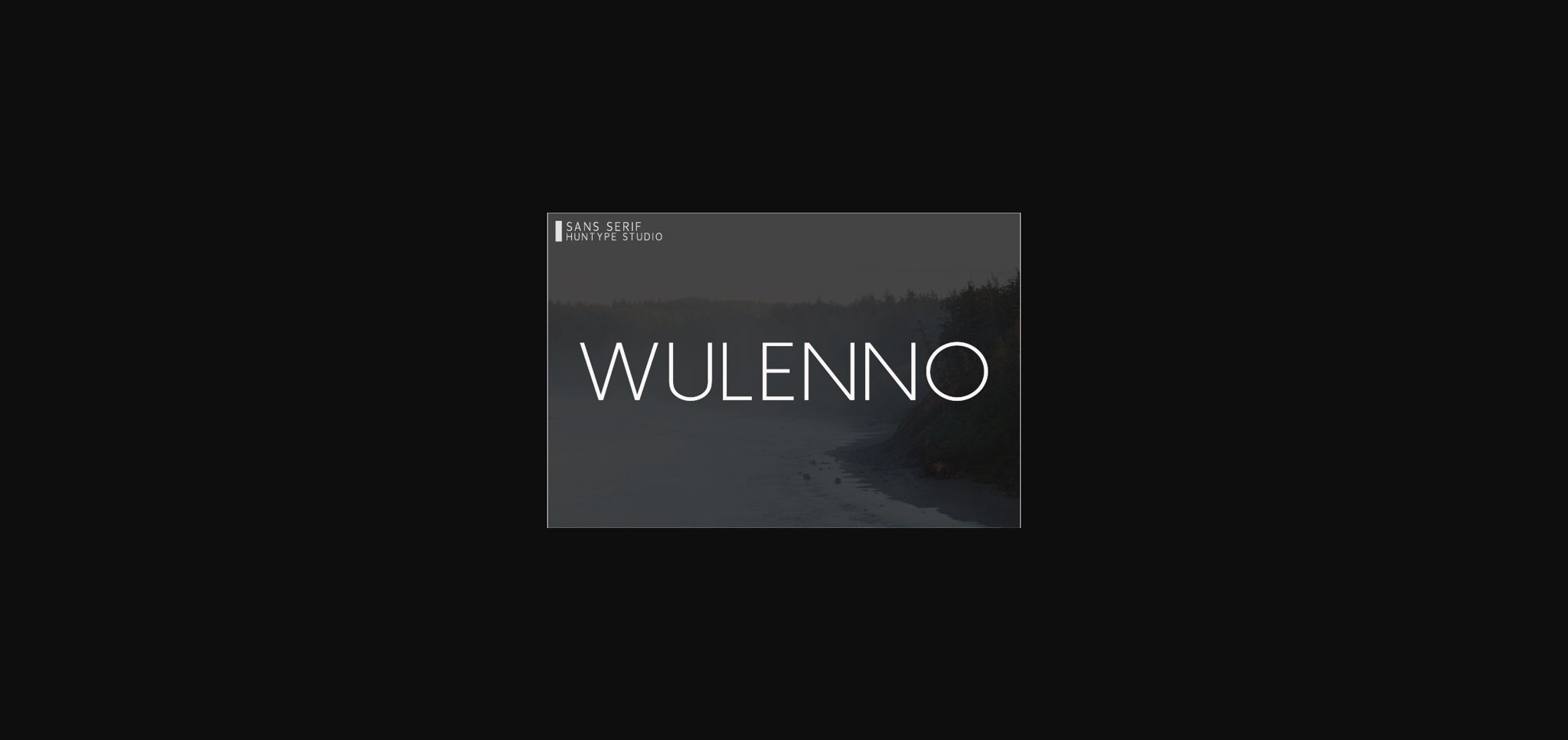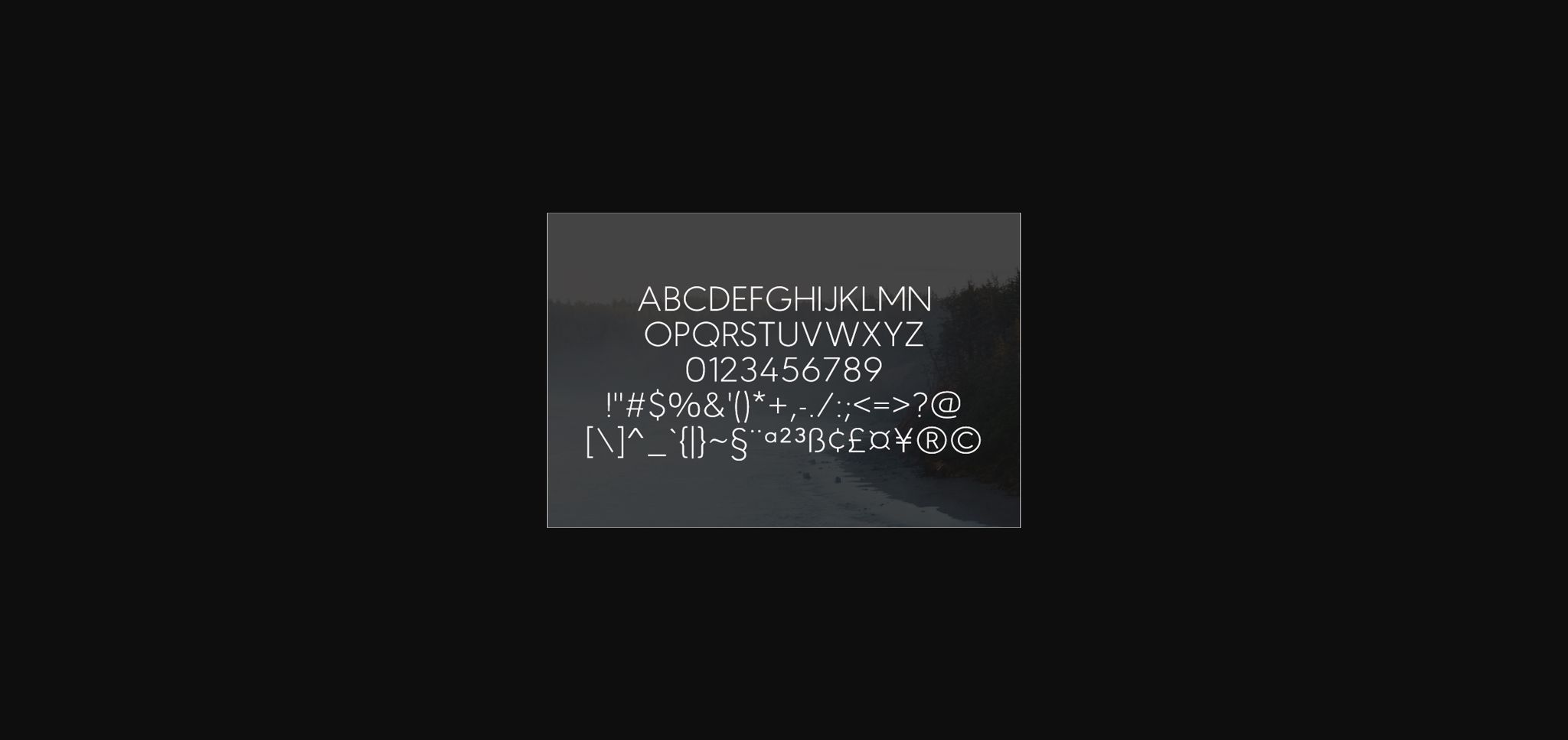
HomeSans Serif FontsWulenno Font Sans Serif Fonts Wulenno Font FacebookTwitterPinterestWhatsApp 1 of 4 ... Wulenno Font Poster 2... Wulenno Font Poster 3... Wulenno Font Poster 4... About Wulenno Font Wulenno is a minimalist and beautiful sans serif font. It will look particularly adept when used in logos, branding, packaging design, and much more. This masterfully designed typeface is a true must-have. DOWNLOAD NOW 146 0 People also explored Soybeanut Font Claire Story Font Handytype Font Ricotta Stregata Font Green Hill Font Smoot Hands Font Kingsmen Over the Mountain Mandala Font Vegan Font Magic Cauldron Font Chocolate Font TagsWulennoWulenno Font Previous articleLarsonne FontNext articleLeighote Font LEAVE A REPLY Cancel reply Comment: Please enter your comment! Name:* Please enter your name here Email:* You have entered an incorrect email address! Please enter your email address here Website: Save my name, email, and website in this browser for the next time I comment. Unlock Endless Creativity with the FREE September Clipart Huge Bundle (Valued at $700!) Personal Use Free Simple Personal Use Free Read more BD Lofi Personal Use Free Read more Burgie Personal Use Free Read more Astagina Signature Personal Use Free Read more BLOG Free Fonts Risk: Why Free Fonts Can Be Dangerous for Designers Free Fonts Risk: Why Free Fonts Can Be Dangerous for Designers Using free fonts is a common practice in web and graphic design. However, the... Where to Buy American Fonts Online in 2024 Transform Your Website: Elevate Your Typography with 7 Best Web Font Generators Exploring Font Trends